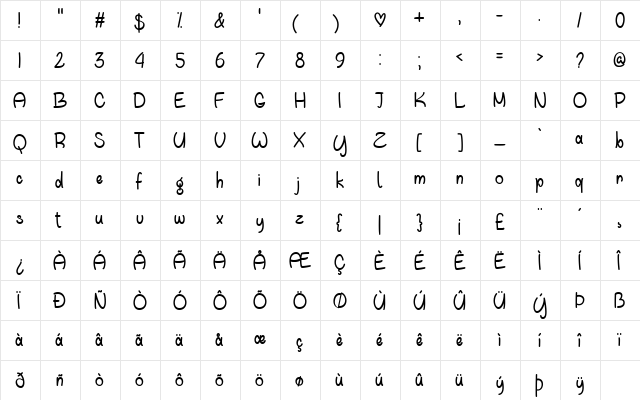
Waiting For You Regular
Design Context for Waiting For You Typeface
Waiting For You offers clean, dependable letterforms without strong stylistic allegiance, making it a practical choice for designers who need flexibility.